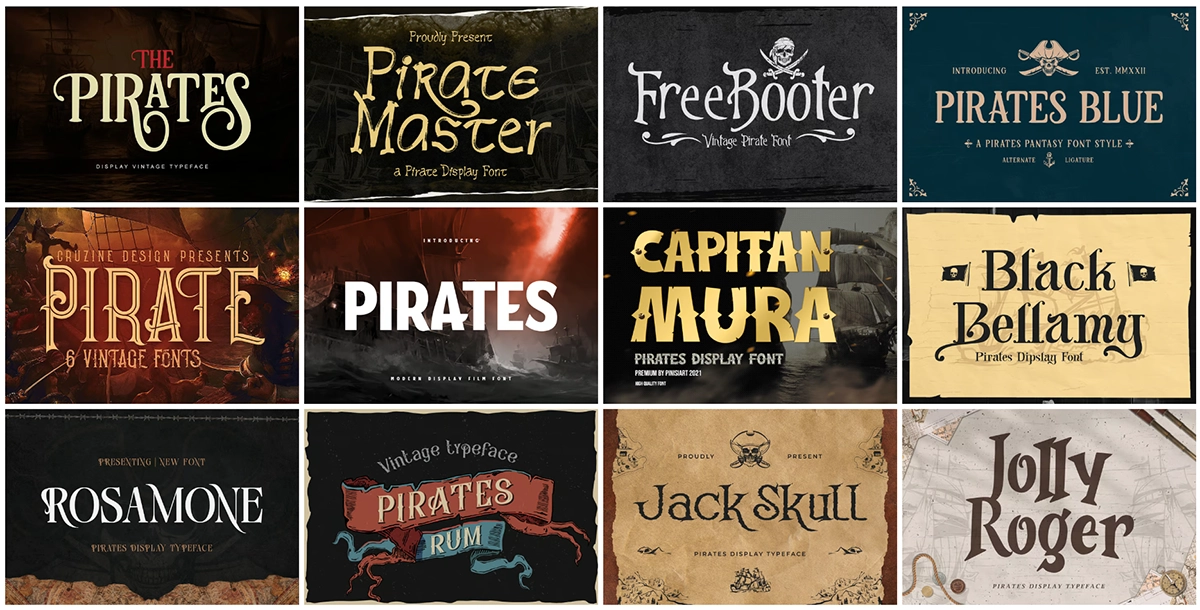
Are you on the lookout for the perfect fonts to bring your pirate-themed designs to life? Whether you’re inspired by the tales of swashbuckling adventures or want to evoke the rugged charm of the high seas, we’ve got you covered! From treasure maps and pirate ship logos to party invitations and movie posters, the right font can set the tone for your entire project.
In this post, we’ve handpicked the best pirate fonts that are perfect for adding a bold, adventurous, and vintage feel to any design. Each font carries the essence of the sea, complete with classic, weathered looks that scream “pirate treasure!” and “mysterious island!”
So, get ready to set sail on a creative journey—scroll through our list of legendary pirate fonts below and find the one that best fits your next project!
1. The Pirates Vintage Typeface
The Pirates Vintage Typeface is a bold and retro font that brings a classic, old-world charm to your designs. With its vintage and timeless feel, it’s perfect for projects that need to evoke a sense of adventure and nostalgia. Whether you’re working on headlines, badges, wedding invitations, or greeting cards, this typeface delivers a striking, harmonious look. Its OpenType features allow for creative flexibility, making it ideal for designers looking to add a touch of vintage flair to their projects.
2. Pirate Master – A Pirate Display Font
Pirate Master” is a bold, adventurous display font that captures the essence of the high seas. With rugged, maritime-inspired letterforms, it’s perfect for pirate-themed designs like posters, treasure maps, logos, and invitations. Its daring and mysterious style makes it ideal for projects that need a sense of adventure and thrill. Whether for party invitations or branding, “Pirate Master” transforms your designs into exciting, ship-worthy creations that truly stand out.
3. Pirates Blue – A Pirates Fantasy Font
Pirates Blue” is a fantasy font that instantly transports you into an adventurous world. Its unique design captures the spirit of pirate lore, making it the perfect choice for movie titles, video games, or any pirate-themed project. With uppercase and lowercase characters, symbols, numerals, ligatures, alternates, and multilingual support, this font offers flexibility and creativity for a wide range of designs. Let “Pirates Blue” bring an exciting, adventurous vibe to your work!
4. Jack Skull – Pirates Display Typeface
Jack Skull is a bold pirate fantasy font that instantly immerses you in the spirit of adventure. With its rugged, daring letterforms, this font is the perfect choice for pirate-themed movies, games, or any design project that needs a swashbuckling touch. Whether you’re creating logos, posters, or fantasy artwork, Jack Skull will add a thrilling and adventurous vibe to your designs.
5. Pirate – Vintage Style Font
6. Black Bellamy – Pirates Display Font
Black Bellamy is a fun pirate-style font that brings the exciting feel of sea adventures to your designs. It has bold, strong letters that are great for making your work stand out. You can use this font for many things, like book covers, posters, logos, and even packaging. It’s perfect for any project that needs a bold, adventurous look!
7. Pirates Rum Vintage Typeface
8. Magellan – Pirates Display Typeface
Magellan is a cool pirate font that makes your designs feel like you’re on a real treasure hunt! The letters look a bit rough and old, just like something you’d see on a pirate’s map. It’s perfect for posters, party invites, or any pirate-themed project. If you want your design to look exciting and adventurous, Magellan will help make it stand out and feel like a fun pirate journey!
9. Pirate Rock – Vintage Layered Font
Pirate Rock – Vintage Layered Font offers a bold, retro look with four unique styles: Base, Inner Shadow, and Rough. This layered design is perfect for creating striking headlines, logos, illustrations, and product designs.
Features:
- Ideal for posters, packaging, logos, and vintage-themed projects
With its rugged, old-school vibe, Pirate Rock adds a dynamic and adventurous touch to any design project that calls for a classic, pirate-inspired aesthetic.
FAQs About Pirate Fonts
What are pirate fonts?
Pirate fonts are unique typefaces designed to capture the adventurous spirit of pirates and the high seas. These fonts often feature rugged, bold letterforms that evoke a sense of swashbuckling adventure. They are characterized by their decorative elements, like skulls, swords, and nautical themes, making them perfect for projects that want to convey excitement and a bit of mystery. Whether you’re creating designs for a pirate-themed party, a book about adventures at sea, or a game, pirate fonts help set the tone and engage the audience.
Where can I use pirate fonts?
Pirate fonts can be utilized in a wide array of creative projects! They are excellent for designing posters that announce pirate-themed events, invitations for parties, book covers for adventurous tales, and branding for games set in a swashbuckling world. In addition to these uses, they can also enhance logos and merchandise related to nautical themes. The playful and adventurous vibe of these fonts makes them versatile, appealing to both children and adults who enjoy pirate lore.